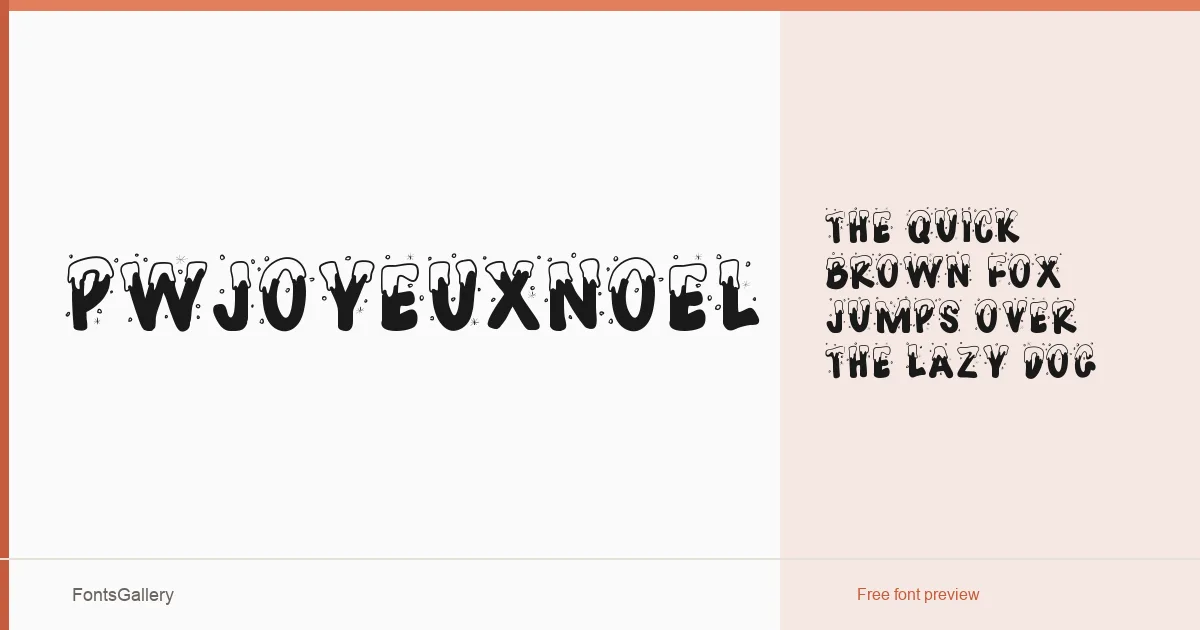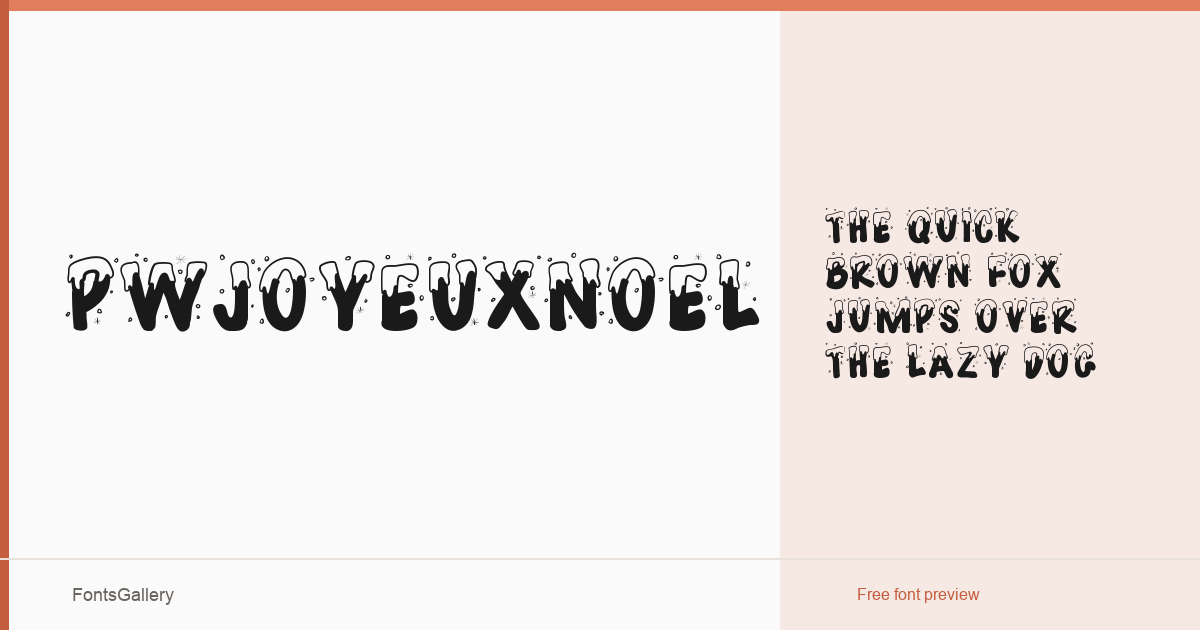
About PWJoyeuxNoel Font
PWJoyeuxNoel is a decorative typeface from Peax Webdesign that brings a festive and expressive energy to any design project. With its playful, vintage, and whimsical character, this font is perfectly suited for seasonal and celebratory creative work. It captures a charming, handcrafted spirit that immediately draws the eye and sets a joyful tone.
As a decorative font with a whimsical and vintage personality, PWJoyeuxNoel features letterforms that feel lively and full of character, evoking a nostalgic yet lighthearted charm. The playful qualities of its design lend each character a sense of movement and warmth, making it a standout choice for headline and display use. Its distinctive style ensures it commands attention without sacrificing a sense of fun and approachability.
PWJoyeuxNoel shines in applications such as posters, greeting cards, t-shirt designs, and children's books, where its expressive personality can take center stage. It works beautifully as a display or headline typeface wherever a festive or whimsical mood is desired. For a balanced typographic composition, consider pairing it with the clean neutrality of Helvetica or the complementary style of Aresink.